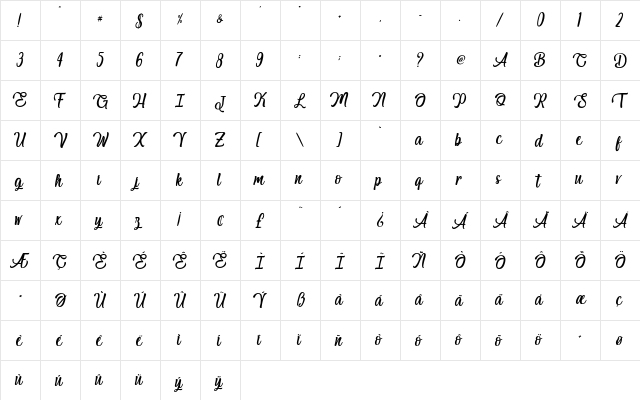
Grayed Rainbow Regular
Design Context for Grayed Rainbow Typeface
Grayed Rainbow is a composed and adaptable typeface that performs quietly and consistently across a wide range of design contexts.
Pro Tip: Use Grayed Rainbow in both headline and body roles to test its range before committing to a single application.